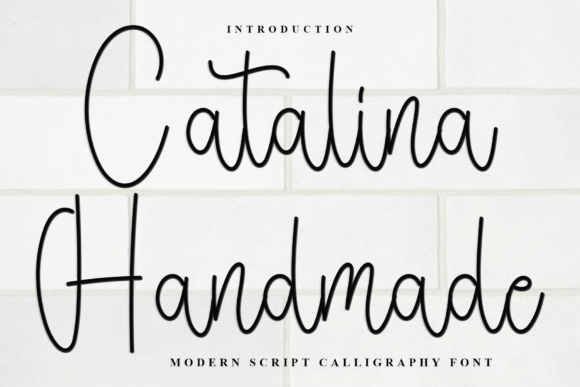
The Quest for the Perfect Font: Discovering Catalina Handmade
I’ll never forget the time I was working on a design project for a client who wanted a font that was both elegant and playful. I spent hours scouring the internet for the perfect font, but nothing seemed to fit the bill. That was until I stumbled upon Catalina Handmade, a beautiful and eye-catching font that has since become a staple in my design toolkit.
A First Impression: What Makes Catalina Handmade Special
Catalina Handmade is a font designed with a soft, unique touch. Its distinctive strokes give it a special character, making it meaningful and versatile for future use. With various characters, it’s perfect for design projects, crafts, and other creative works.
- ✨ Unique and distinctive strokes that add a touch of elegance to any design
- 🎨 Perfect for design projects, crafts, and other creative works
- 🤔 Some users may find the font a bit too delicate for certain design projects
- ⚠️ Limited availability of certain characters and glyphs
Exploring OpenType Features, Glyphs, and Stylistic Alternates
Catalina Handmade was designed with the intention of creating a font that was both elegant and playful. The designer wanted to create a font that would be perfect for design projects, crafts, and other creative works. With its unique and distinctive strokes, Catalina Handmade is sure to add a touch of sophistication to any design.
Q: What is Catalina Handmade?
A: Catalina Handmade is a beautiful and eye-catching font designed with a soft, unique touch.
Q: What can I use Catalina Handmade for?
A: Catalina Handmade is perfect for design projects, crafts, and other creative works.